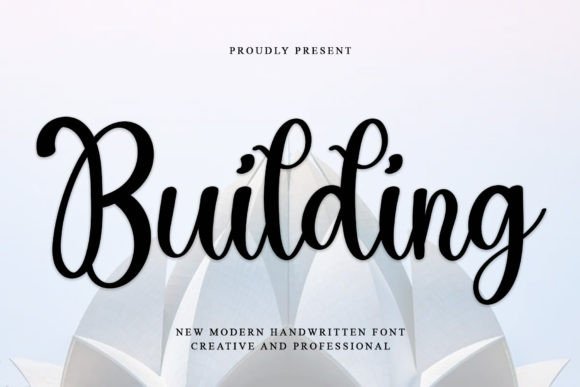
The Cozy Charm of Building Font: A Designer’s Delight
As a designer, I’ve had my fair share of font hunting struggles. I recall working on a project for a cozy autumn-themed cafe, desperately searching for the perfect typeface to evoke the warmth and nostalgia of the season. That’s when I stumbled upon Building Font, a delightful and enchanting typeface that captured the essence of fall in all its glory.
Building Font has quickly become one of my go-to typefaces for autumn-inspired projects. Here’s what I love about it:
• ✨ Elegant, refined letterforms with a warm, earthy feel
• ✅ Perfect blend of whimsy and sophistication
• 🌿 Beautifully suited for seasonal greetings, nature-inspired branding, and fall-themed designs
• 💻 Highly legible, even at smaller font sizes
While Building Font is a stunning typeface, it’s not without its quirks. A few things to keep in mind:
• 🤔 Some characters may appear a tad too ornate for very short texts or headings
• ⚠️ Limited support for non-English languages (but the developer is working on expansions)
The Story Behind Building Font
Building Font was designed by a passionate typographer who wanted to capture the essence of the fall season. Inspired by the changing leaves, crisp air, and cozy warmth of autumn, this font embodies the perfect blend of whimsy and sophistication. The designer’s goal was to create a typeface that would evoke feelings of nostalgia and comfort, making it perfect for autumn-themed projects and seasonal greetings.
Font Name Building Font
Author PiPi Creative
What makes Building Font unique? Building Font’s unique blend of elegance, whimsy, and earthy tones sets it apart from other typefaces.
Is Building Font suitable for digital designs? Absolutely! Building Font’s clear, legible letterforms make it perfect for both print and digital designs.
Can I use Building Font for non-English text? While Building Font has limited support for non-English languages, the developer is working on expanding its language support.